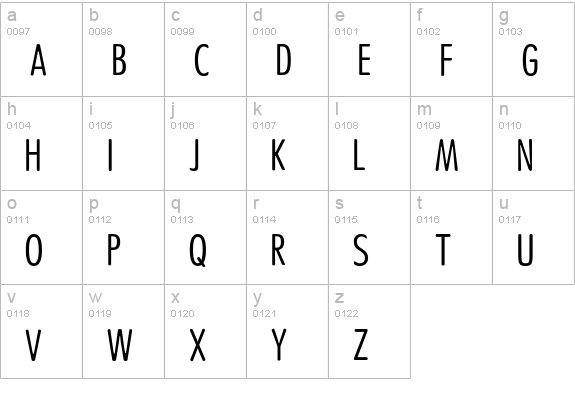
Bouncer Light is a refined, elegant variant in the Bouncer typeface family \xE2\x80\x94 well suited to elegant body text, refined sub-headings, and luxury branding.
Bouncer Light font is a sleek and modern typeface that exudes elegance and sophistication. Its clean lines and subtle curves make it perfect for a wide range of design projects, from branding to editorial to web design. The light weight of this font adds a touch of delicacy and refinement to any text, making it a versatile choice for both headings and body copy. What sets Bouncer Light font apart is that it is available for free download at FontsMarket.com. This means you can easily access this high-quality font and use it in your projects without any cost. Whether you're a seasoned designer or just starting out, Bouncer Light font is a valuable addition to your font library. Don't miss the opportunity to elevate your designs with this beautiful and free typeface.